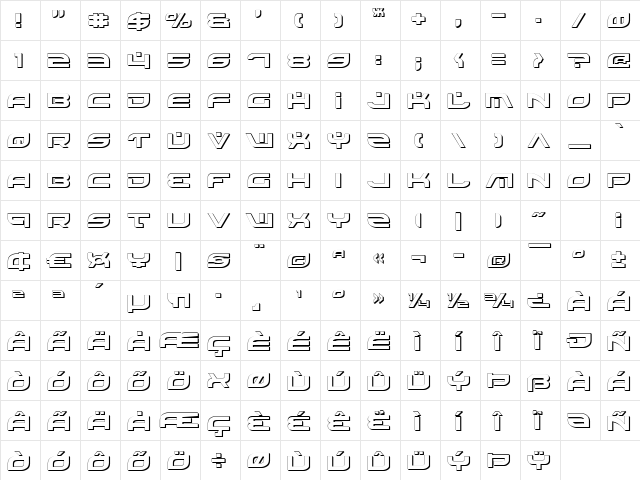
Complete Battlefield Shadow glyph index. Displaying only characters natively supported by Battlefield Shadow font.
Battlefield is built around its visual character rather than neutral utility - its distinctive forms are designed to make an impression at display sizes.
Font Pairing: Pair with a clean neutral sans-serif for body copy to let Battlefield's character lead without overwhelming the composition.
Pro Tip: Use Battlefield exclusively at display sizes - it was designed to be seen, not read at length. Let a neutral companion handle body copy.